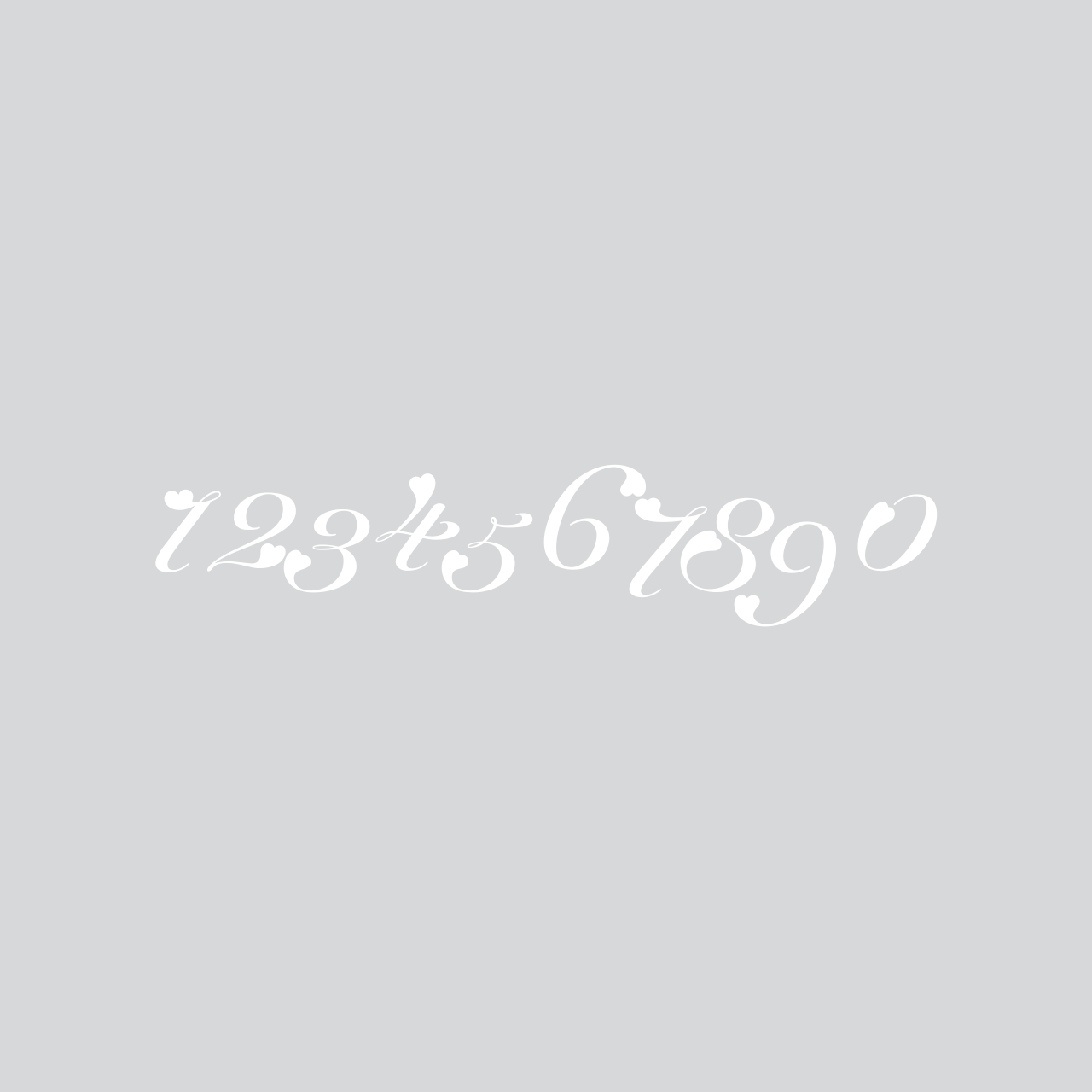
Will it be a lovely heart for the February calendar with Valentine's Day?Soft curved old style number font sandoll tender heart!The SHY WAIT has a round tail and has a cute and soft impression.
If you raise the heart of the barrier font, you will be able to see the numbers with a bold expression of hidden hearts.